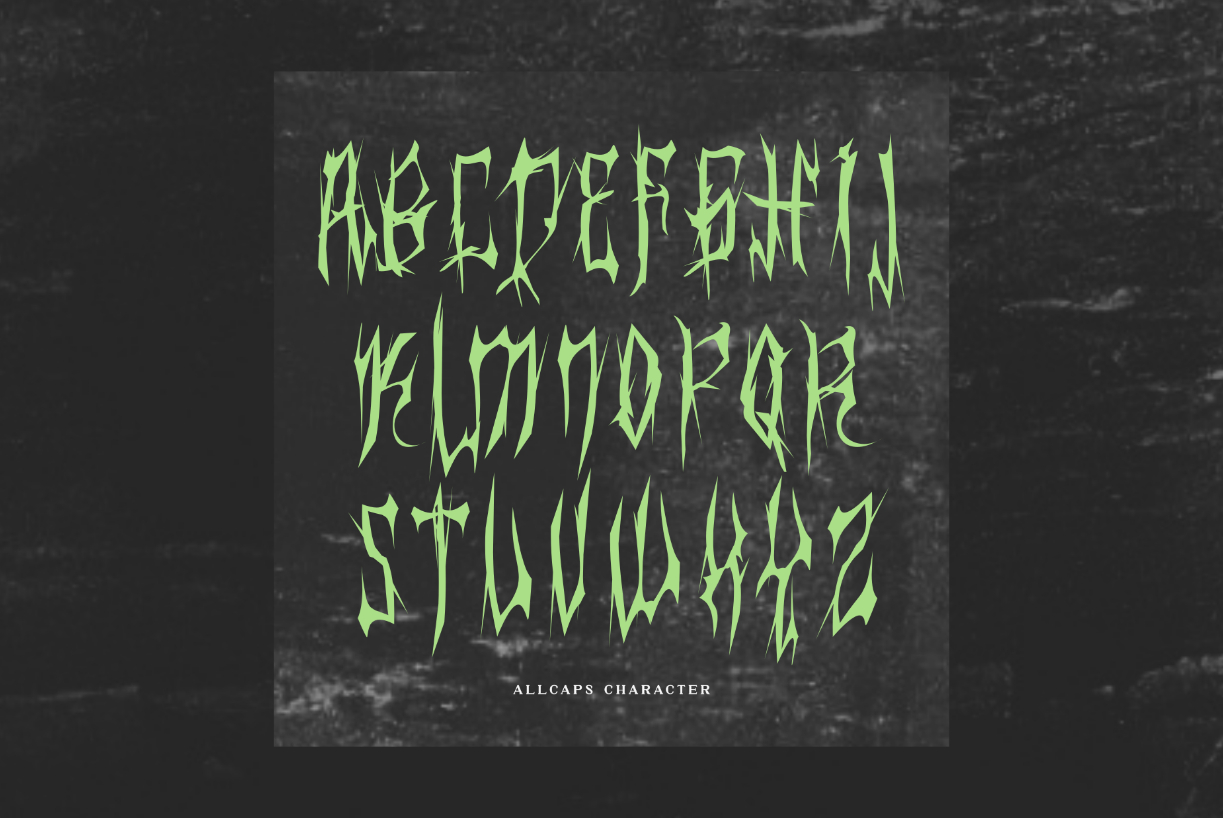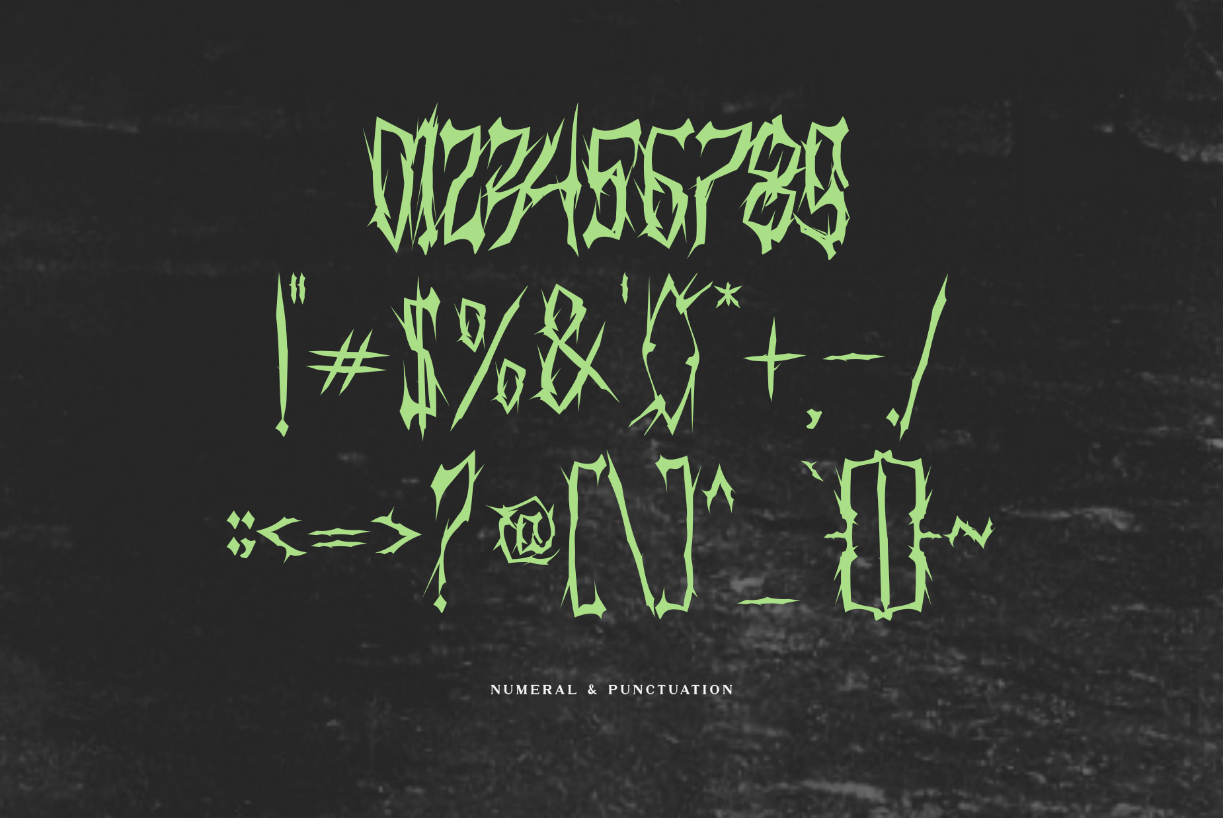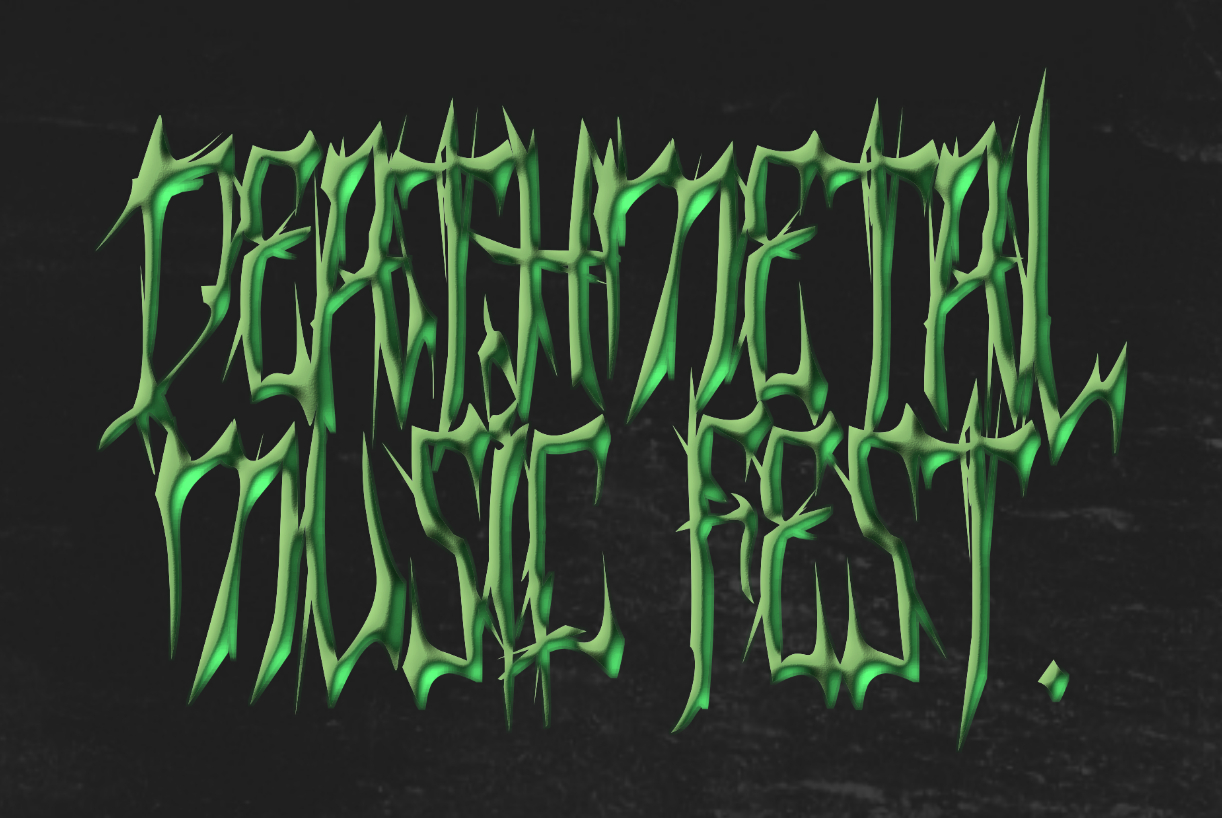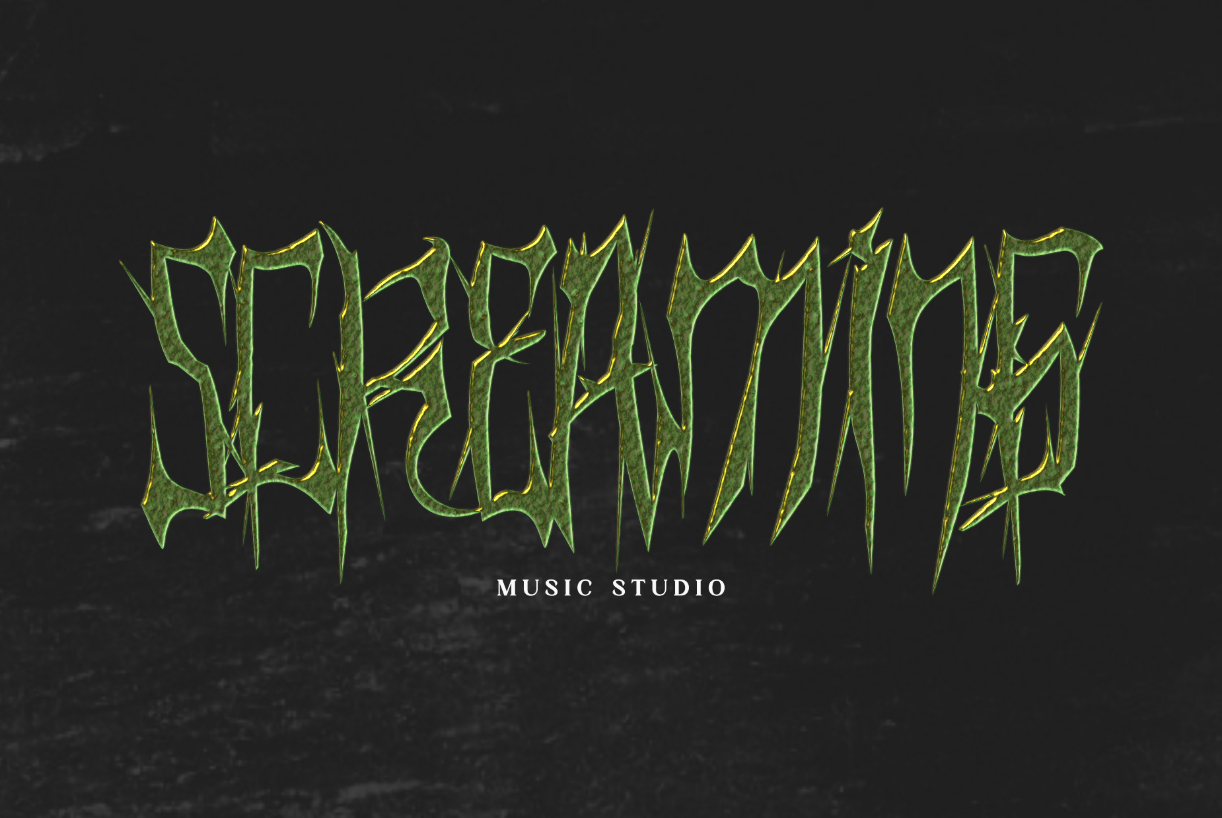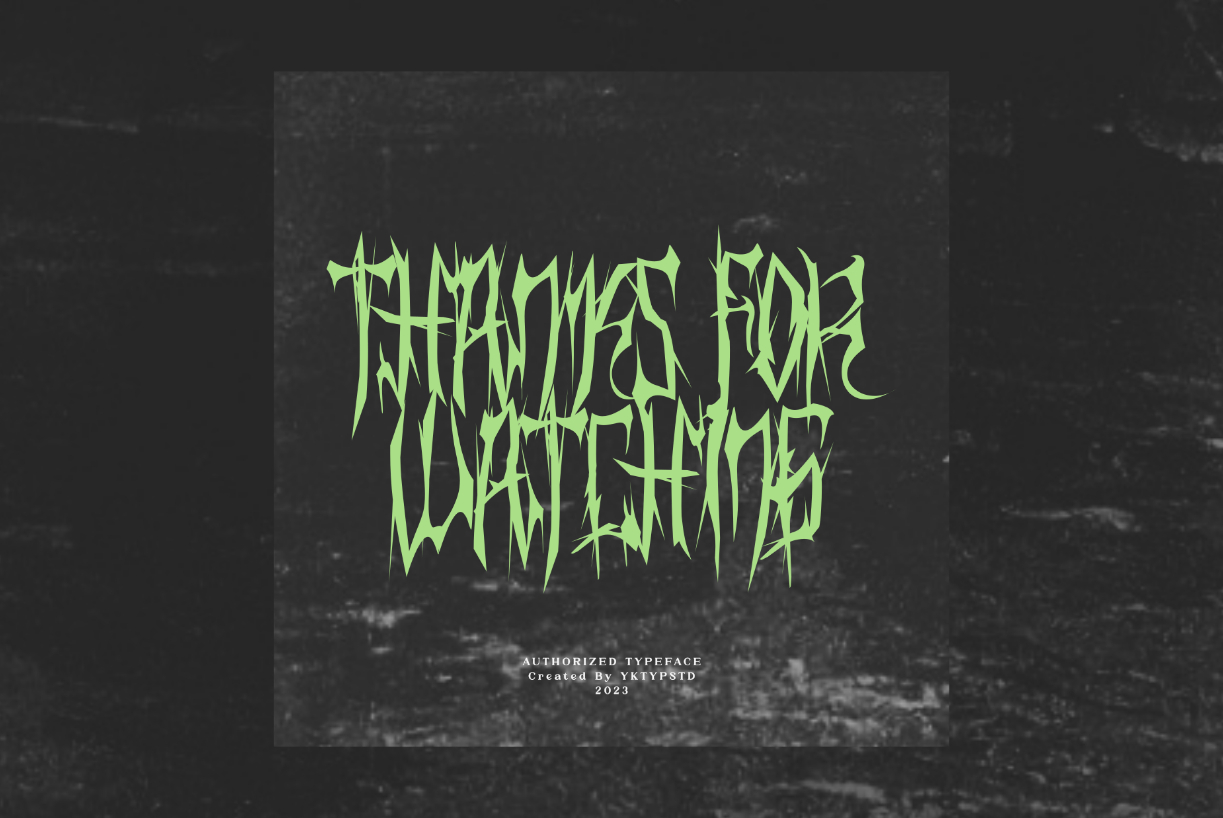
Authorized Font
About Authorized Font
Proudly Present: “Authorized”
Authorized is the perfect choice for logotypes, Bands, headlines, apparel, album covers, branding, Merchandise, posters, horror movies, merchandise and more!